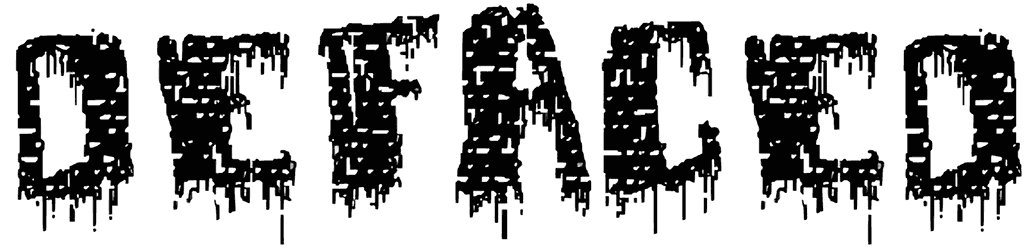
Defaced Font
As you can see, Defaced with a distorted face is a horror font. Challenge the courage of your viewers by displaying a formidable design with messy letters. Posters or invitation cards, illustrations or webs, or any other…
As you can see, Defaced with a distorted face is a horror font. Challenge the courage of your viewers by displaying a formidable design with messy letters. Posters or invitation cards, illustrations or webs, or any other designs, Defaced can show them ruinous even without lowercase letters, numerals, and most of the punctuation marks support.